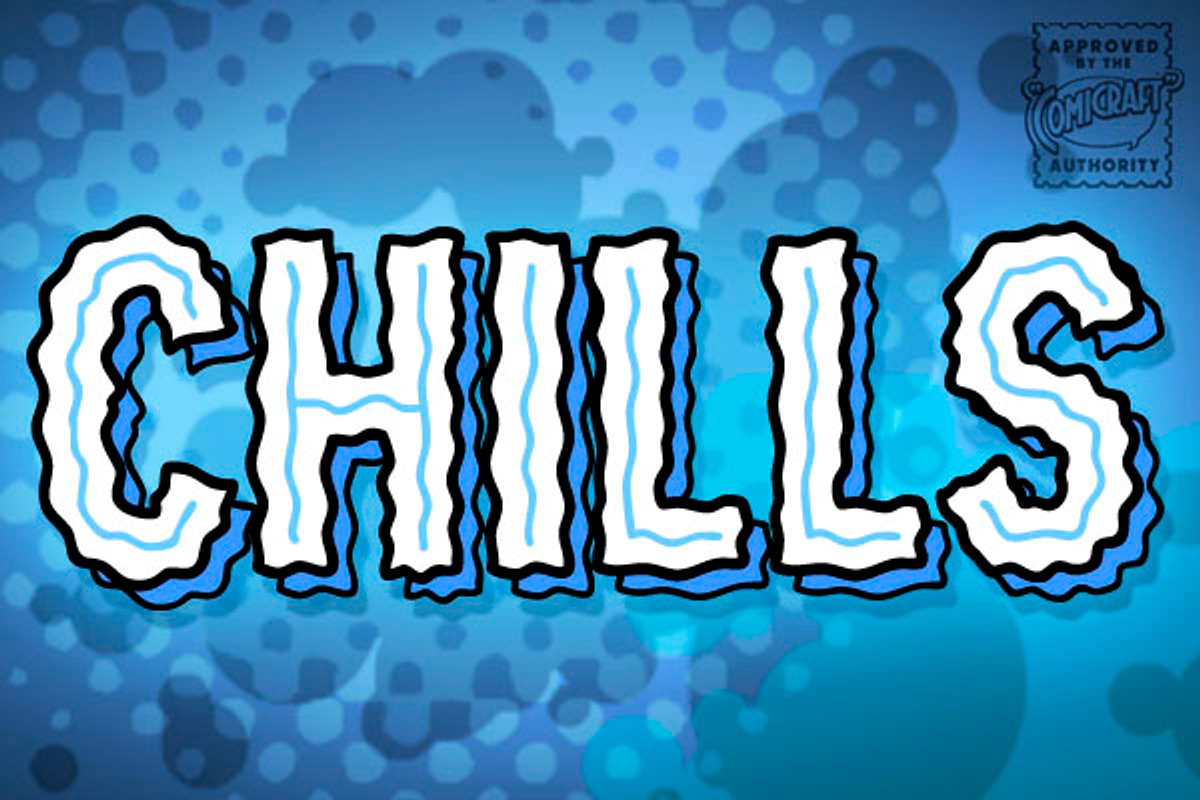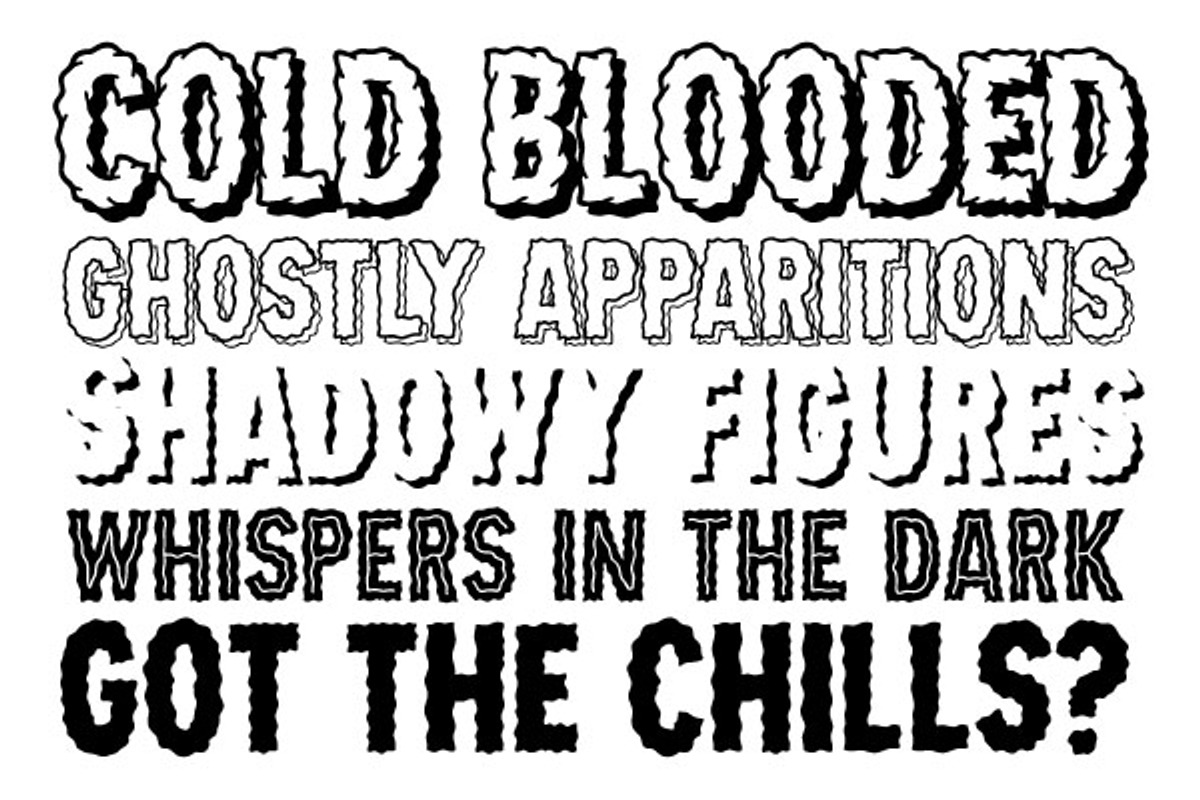
Chills
Chills by Comicraft Fonts is a font selected for branding, posters, packaging, typography.
Chills by Comicraft Fonts fits naturally into Branding, posters, packaging, typography.